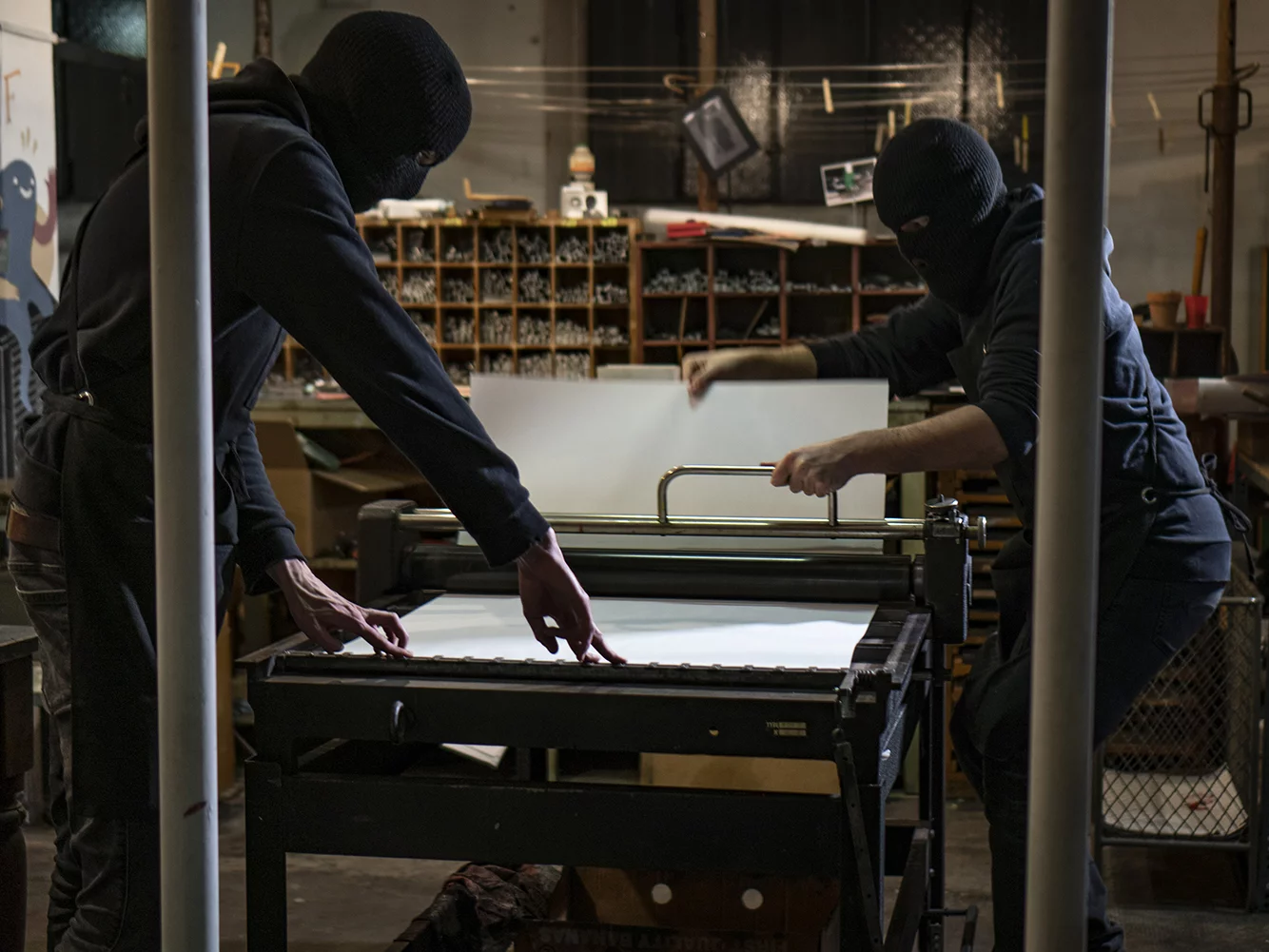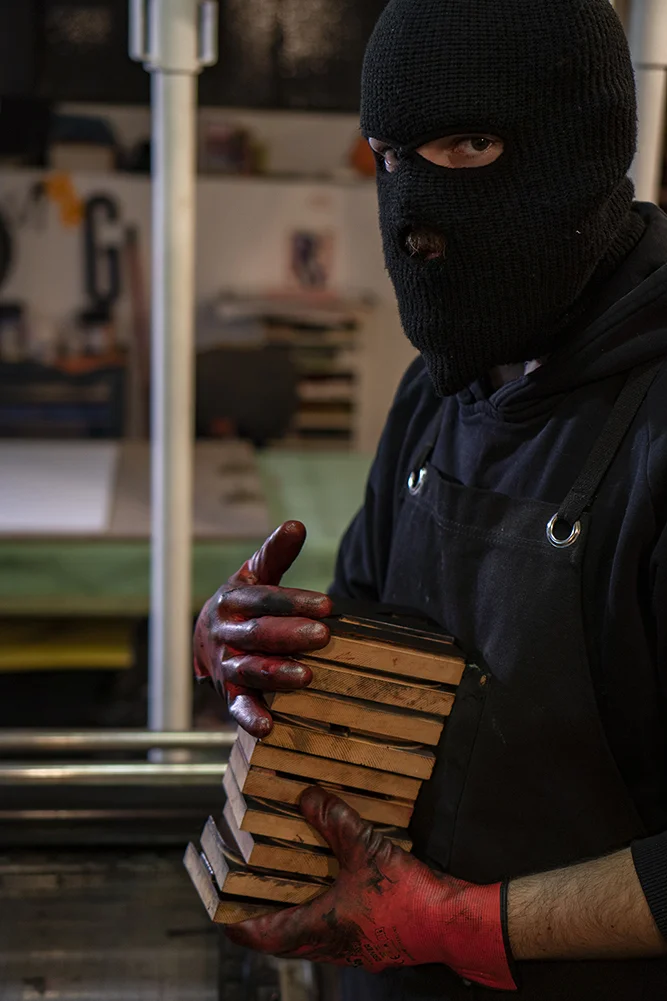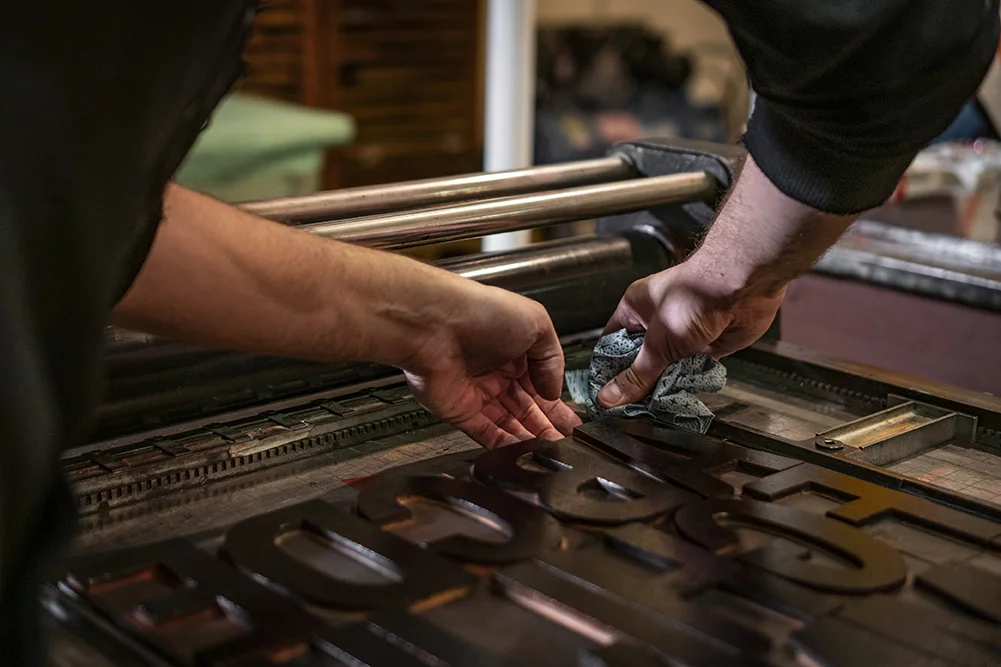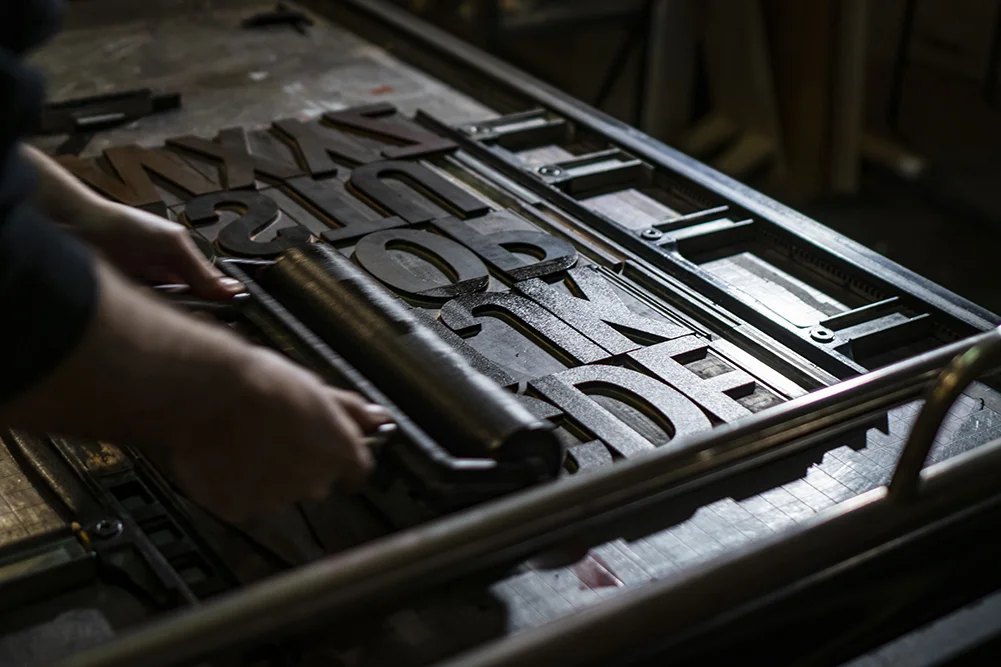
Describing themselves as “a graphic designer and letterpress terrorists” duo, we caught up with 5X Letterpress who produce prints using movable types and every ink-able surface. Working from a secret location in a basement of a print shop, the studio put together their passion for prints and type design which in turn, forms their project: 5X Letterpress. Armed with moveable type, and a printing press the pair have the freedom for ultimate experimentation that take the form of typographic prints.
Their response to our question “do you think letterpress can develop any more than where it is now?” They replied:
“Typography and layout design has received perhaps an unexpected thrust from the digital world in recent years, for example with the parametric fonts or the fluid and dynamic layout of the responsive sites. We don’t come from the digital world but we try to put something of this universe in an analogic experimentation project of letterpress which people are still drawn to regardless. ”
Does anyone come to mind who are pushing the boundaries of you can do with the letterpress technique?
Dafi Kuhne, a letterpress printmaker from Switzerland, for us he combines very well digital design with the analogue printing technique. And he’s really pushing the boundaries of letterpress world.
What’s the most exciting project you’ve enjoyed working on?
Our most exciting project, for now, is our first exhibition T’ho detto piano realised together for the international collective of Libri Finti Clandestini and hosted at Magazzino, Spazienne’s gallery. Thanks to the work with Spazienne (young collective of Italian artists) we and Libri Finti Clandestini have put us to test and see our works in a new way.